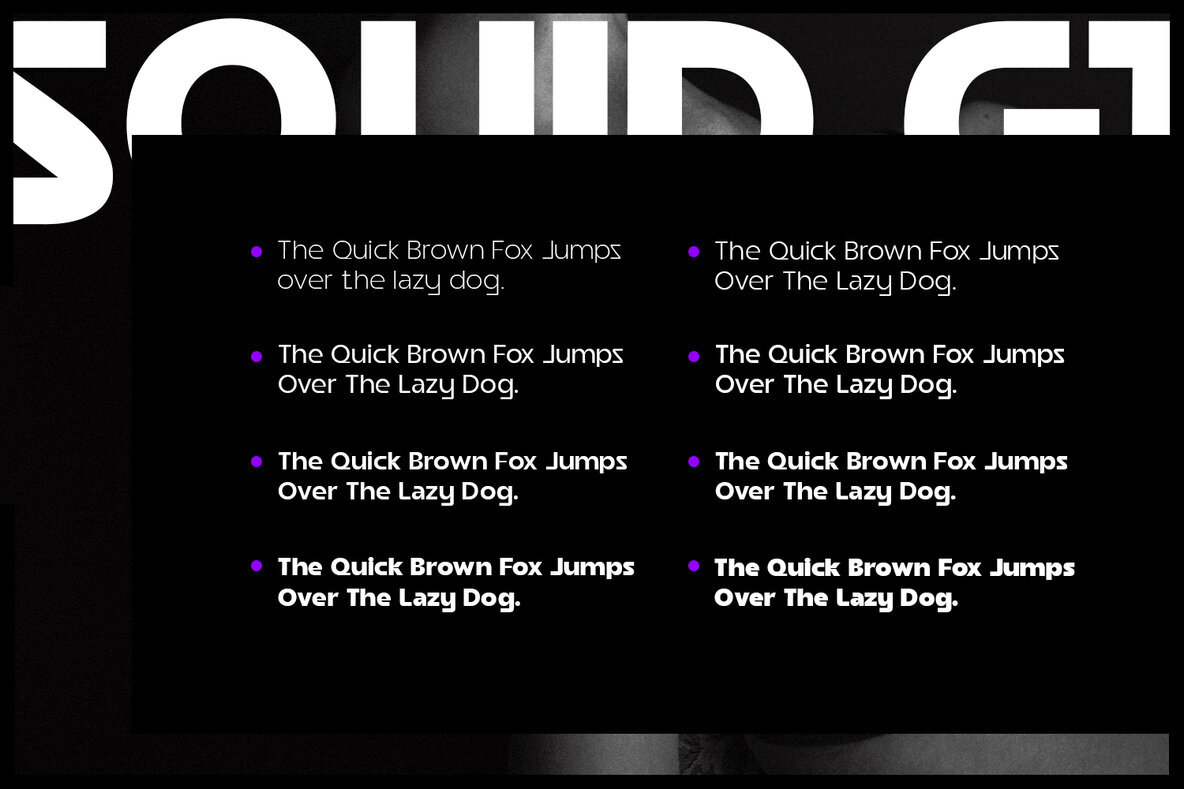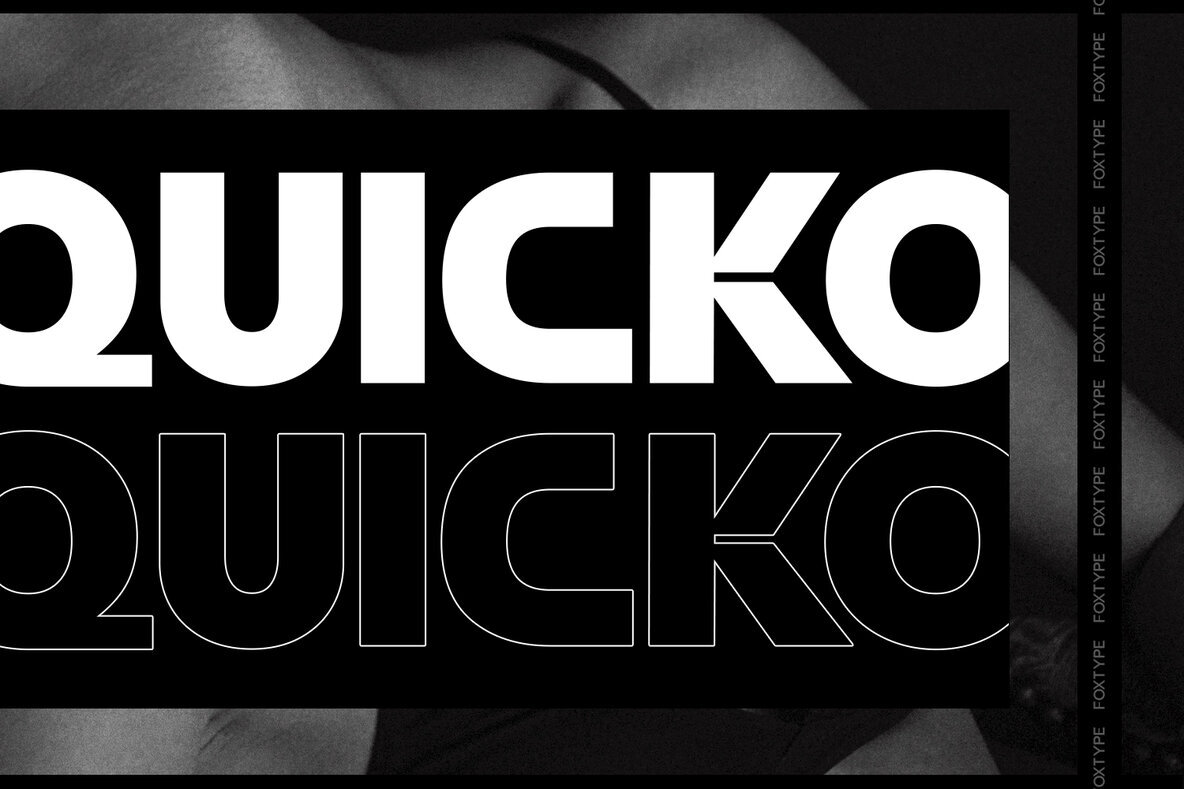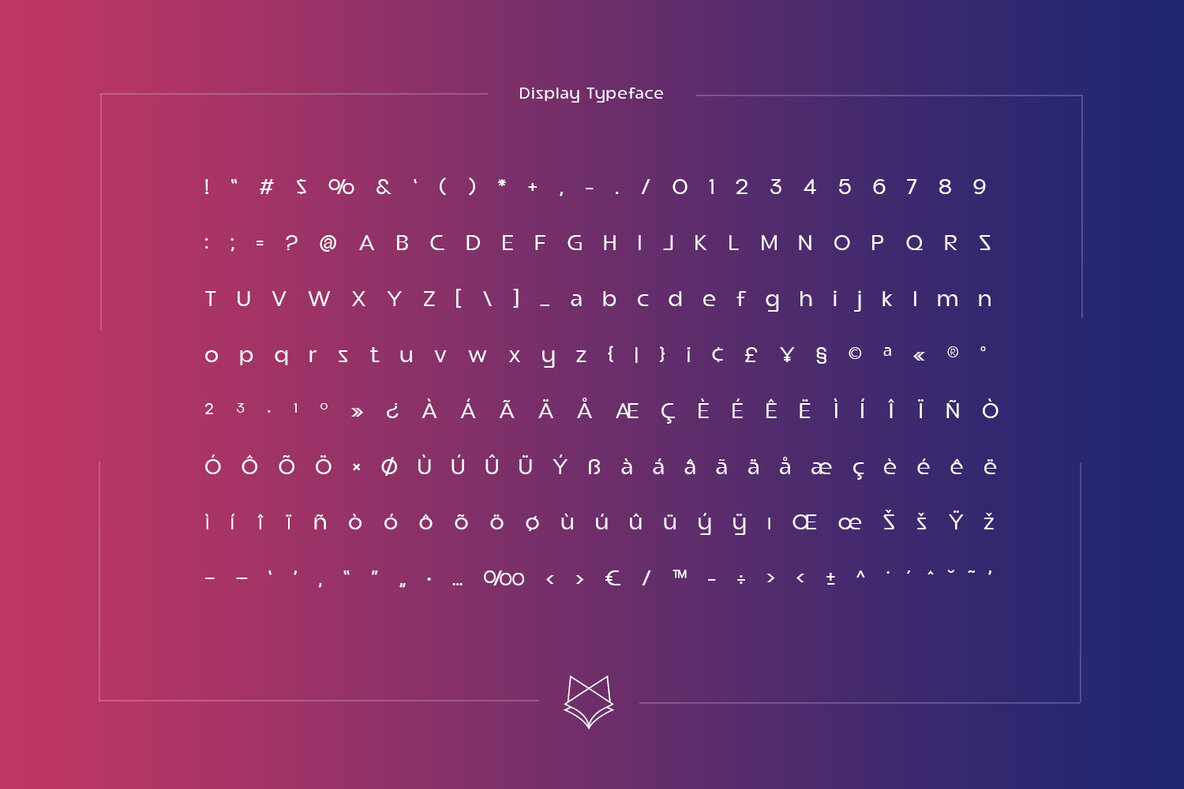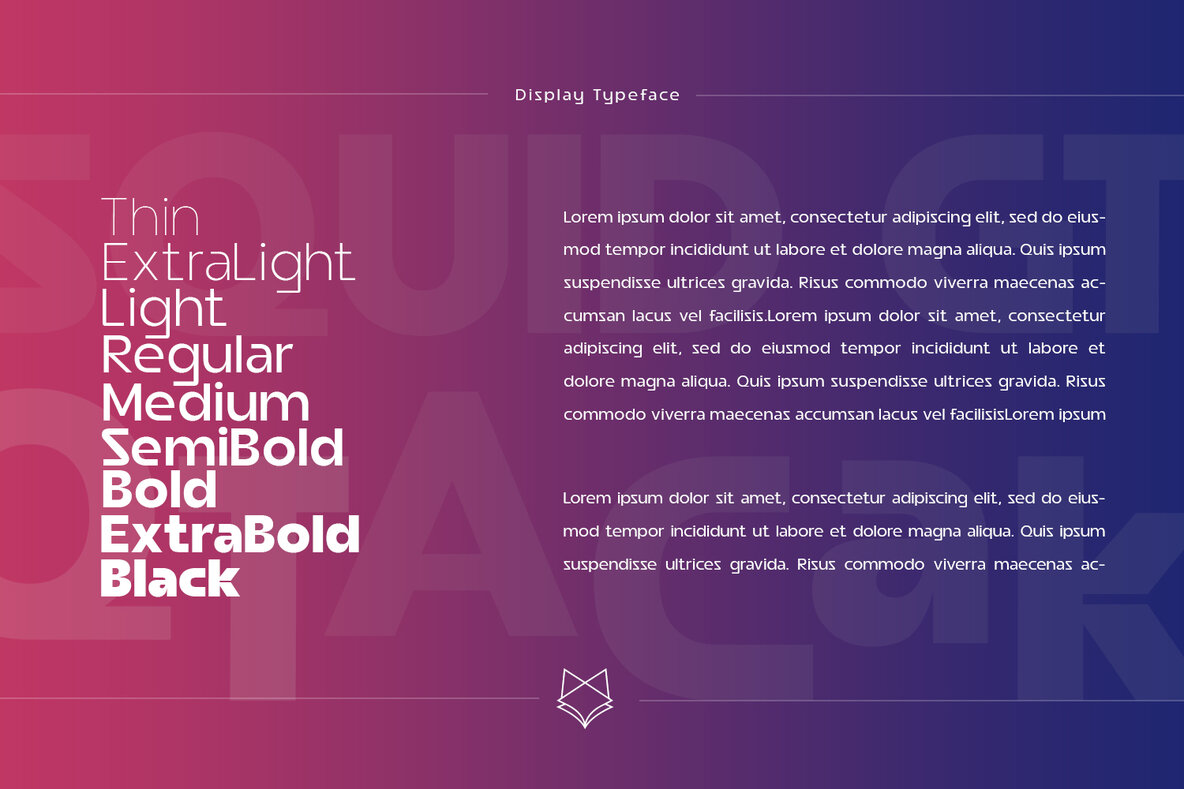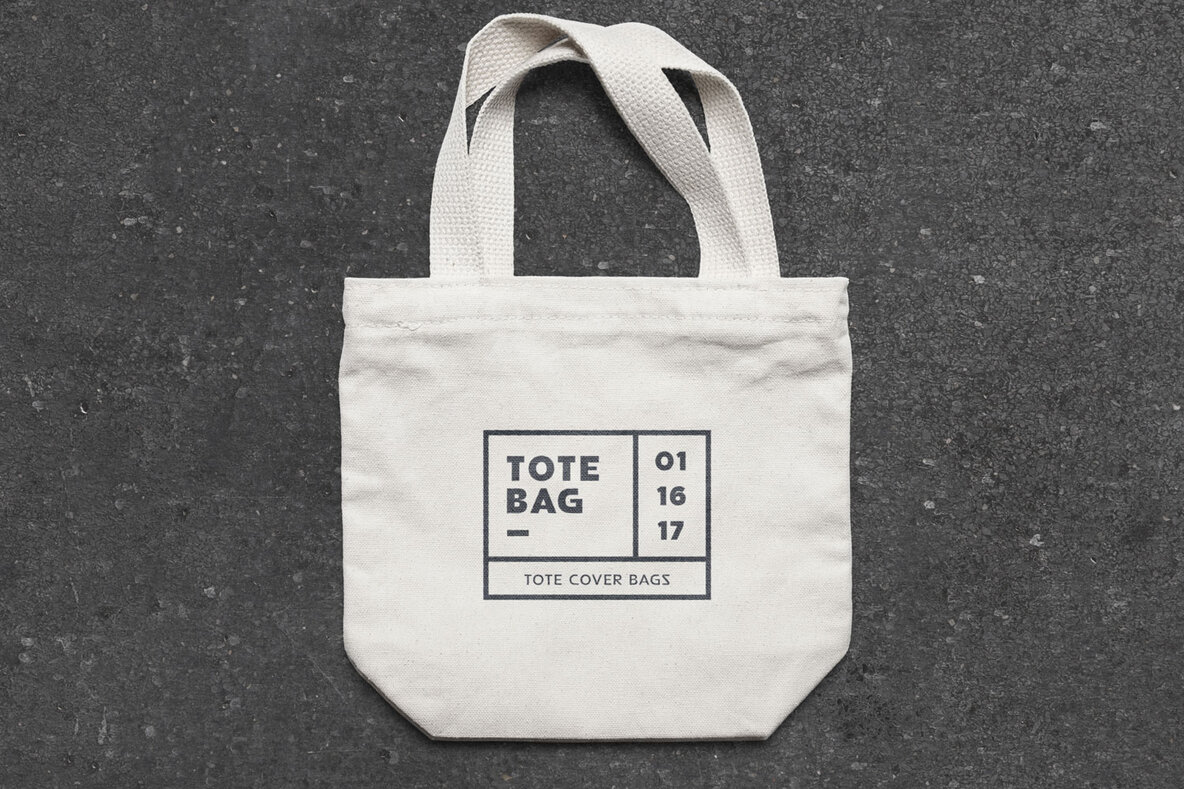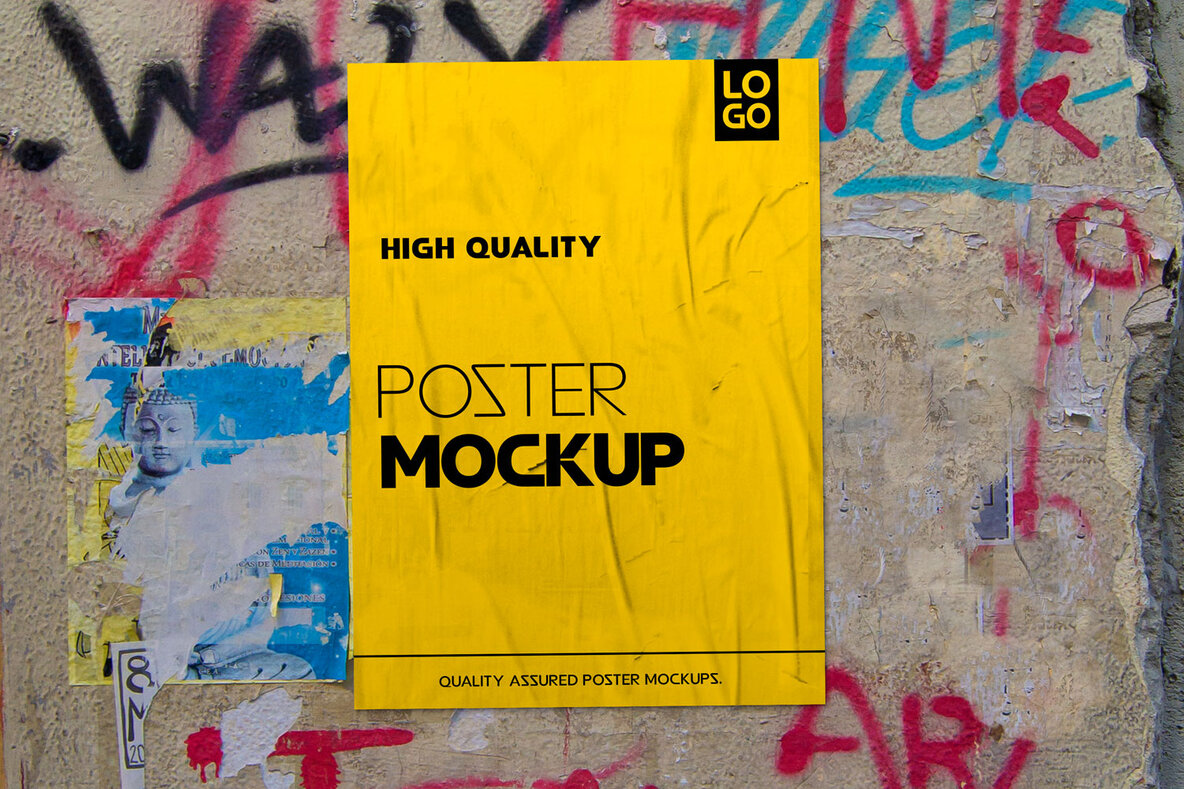
Squid GT Font
Squid GT by FoxType Co is a contemporary typeface designed to captivate and enhance brand identity. With methodically crafted details, this typeface serves multiple purposes, making it ideal for corporate settings and a variety of creative projects. It is particularly well-suited for branding, logos, titles, headlines, posters, digital ads, and any context where impactful typography is essential.Squid GT: Versatile Display Typeface with Nine Weights